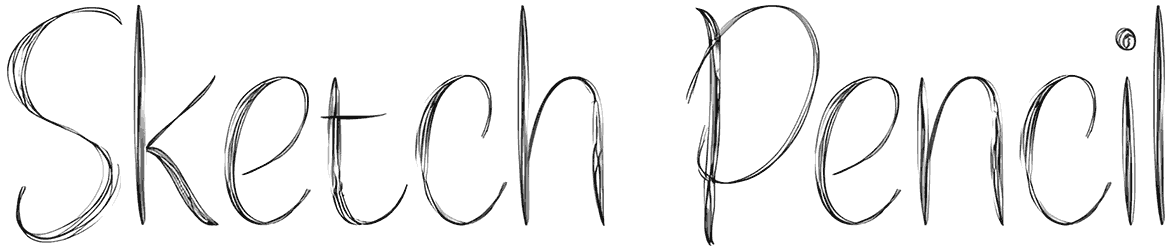
Sketch Pencil Font
Make your design lovely with cute handwriting and catch a lot of attention. As a handwritten font, Sketch Pencil has a realistic and gorgeous face that can be a nice decoration for your words. This sketch font doesn’t come up with numbers and punctuation marks, but with two versions, it would be a catchy illustration for various layouts, from posters to apparel.